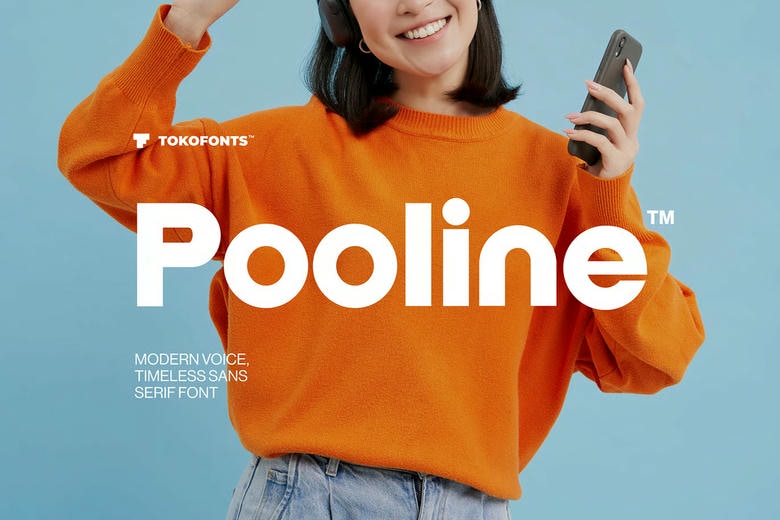
Pooline Font
Pooline Font is a modern, elegant sans-serif with a clean, minimal style. Inspired by Helvetica, Montserrat, and Futura, it combines geometric balance with a friendly look. Its bold, easy-to-read letters are great for logos, business materials, and fashion projects, while still feeling timeless.
Because of its clear structure and easy readability, Pooline fits many uses, from headlines to playful children’s fonts that still look polished. Its modern style and simple design make it stand out in both digital and print, giving designers flexibility while keeping things elegant and professional.
Pooline Sans Serif Font